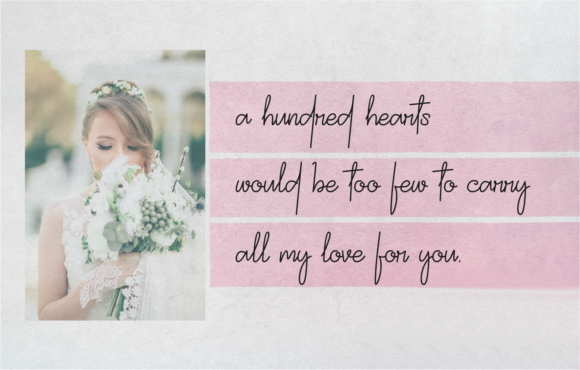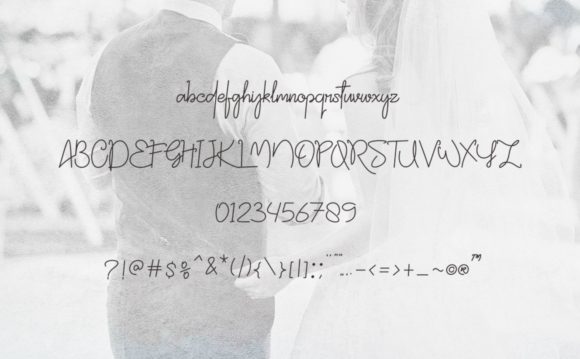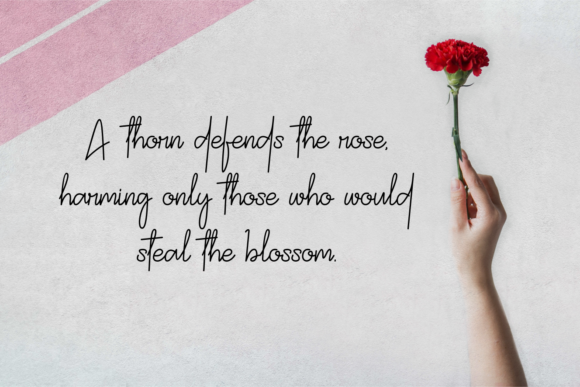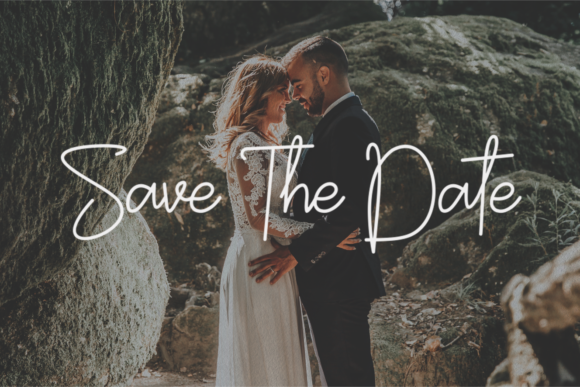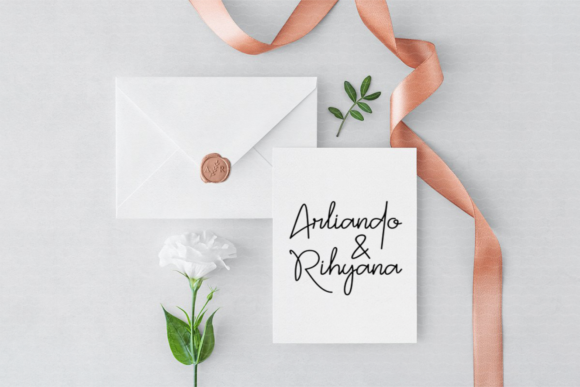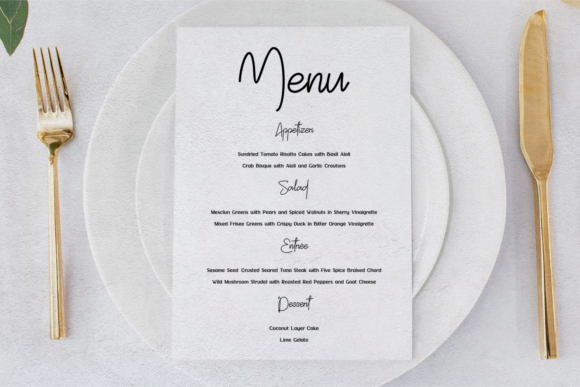
Hayunikah Font: The Perfect Choice for Romantic Designs
Are you looking for a font that exudes romance and playfulness? Look no further than Hayunikah, a beautiful script font inspired by weddings. With its charming and whimsical design, Hayunikah is sure to capture the hearts of designers and crafters alike. In this article, we’ll take a closer look at the Hayunikah font, its features, and how you can use it to create stunning designs.
What is Hayunikah Font?
Hayunikah is a romantic script font that is perfect for designing wedding invitations, cards, and other romantic materials. The font is inspired by the beauty and magic of weddings, and its playful charm is sure to make your designs stand out. With its elegant and cursive design, Hayunikah is ideal for creating beautiful and memorable designs that will leave a lasting impression.
Features of Hayunikah Font
So, what makes Hayunikah font so special? Here are some of its key features:
- Romantic and Playful Design: Hayunikah font has a romantic and playful design that is perfect for wedding designs and other romantic materials.
- Elegant and Cursive: The font has an elegant and cursive design that adds a touch of sophistication to your designs.
- Whimsical and Charming: Hayunikah font has a whimsical and charming design that is sure to capture the hearts of your audience.
- High-Quality and Clear: The font is designed to be high-quality and clear, making it perfect for use in a variety of designs.
How to Use Hayunikah Font
Hayunikah font is versatile and can be used in a variety of designs, including:
- Wedding Invitations: Use Hayunikah font to create beautiful and romantic wedding invitations that will set the tone for your special day.
- Cards and Stationery: The font is perfect for designing cards and stationery for special occasions, such as Valentine’s Day and anniversaries.
- Signs and Banners: Use Hayunikah font to create eye-catching signs and banners for weddings and other events.
- Digital Designs: The font can also be used in digital designs, such as social media graphics and blog posts.
Tips for Using Hayunikah Font
Here are some tips for using Hayunikah font in your designs:
- Pair with Other Fonts: Hayunikah font pairs well with other fonts, such as sans-serif fonts, to create a beautiful and contrasting design.
- Use in Combination with Images: Use Hayunikah font in combination with images, such as flowers and lace, to create a romantic and whimsical design.
- Experiment with Colors: Experiment with different colors, such as pastels and metallics, to add a touch of elegance to your designs.
Hayunikah font is a beautiful and romantic script font that is perfect for designers and crafters who want to create stunning designs. With its playful charm and elegant design, Hayunikah is sure to capture the hearts of your audience. Whether you’re designing wedding invitations, cards, or digital designs, Hayunikah font is a great choice. So, fall in love with Hayunikah font and start creating beautiful designs today!